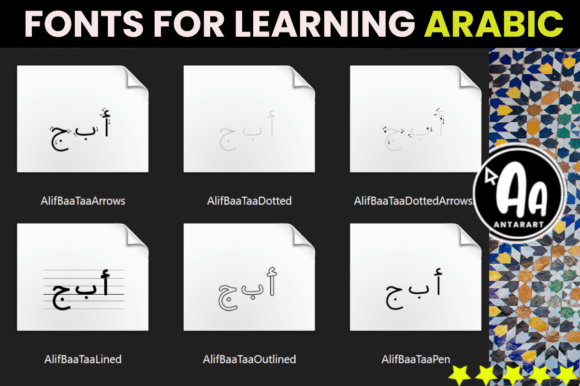
Alif Baa Taa Arabic Alphabet Letters Font: A Comprehensive Guide to Learning Arabic
The Arabic language has a rich history and culture, and learning it can be a rewarding experience. One of the essential steps in learning Arabic is to familiarize yourself with its alphabet. The Alif Baa Taa Arabic Alphabet Letters Font is a valuable resource that can help you learn and teach Arabic with ease. In this article, we will explore the benefits of using this font and how it can aid in your Arabic learning journey.
What is Alif Baa Taa Arabic Alphabet Letters Font?
The Alif Baa Taa Arabic Alphabet Letters Font is a handwritten Arabic font designed to help individuals learn and teach the Arabic language. This font includes all the letters of the Arabic alphabet, written in a clear and readable style. The font is perfect for creating worksheets, flashcards, and other learning materials that can be used to teach Arabic to students of all ages.
Benefits of Using Alif Baa Taa Arabic Alphabet Letters Font
The Alif Baa Taa Arabic Alphabet Letters Font offers several benefits for individuals interested in learning or teaching Arabic. Some of the advantages of using this font include:
- Easy to Read and Write: The font is designed to be clear and readable, making it easy for individuals to learn and practice writing Arabic letters.
- Perfect for Worksheets and Flashcards: The font can be used to create worksheets, flashcards, and other learning materials that can be used to teach Arabic to students of all ages.
- Great for Language Learners: The font is an excellent resource for individuals interested in learning Arabic, as it provides a clear and concise way to practice reading and writing Arabic letters.
- Supports Language Teachers: The font is also a valuable resource for language teachers, as it provides a consistent and clear way to teach Arabic letters to students.
How to Use Alif Baa Taa Arabic Alphabet Letters Font
The Alif Baa Taa Arabic Alphabet Letters Font can be used in a variety of ways to support Arabic language learning. Here are some ideas:
- Create Worksheets: Use the font to create worksheets that include Arabic letters, words, and phrases. This can be a great way to practice reading and writing Arabic.
- Make Flashcards: Create flashcards using the font to help you memorize Arabic letters and words.
- Design Posters: Use the font to create posters that display Arabic letters and words. This can be a great way to decorate a classroom or language learning space.
- Practice Handwriting: Use the font to practice writing Arabic letters by hand. This can help improve your handwriting and reinforce your learning.
Tips for Learning Arabic with Alif Baa Taa Arabic Alphabet Letters Font
Here are some tips for learning Arabic using the Alif Baa Taa Arabic Alphabet Letters Font:
- Start with the Basics: Begin by learning the individual Arabic letters, and then practice reading and writing words and phrases.
- Practice Regularly: Set aside time each day to practice reading and writing Arabic using the font.
- Use Flashcards: Create flashcards using the font to help you memorize Arabic letters and words.
The Alif Baa Taa Arabic Alphabet Letters Font is a valuable resource for individuals interested in learning or teaching Arabic. This font provides a clear and readable way to practice reading and writing Arabic letters, making it an excellent tool for language learners and teachers. By using this font, you can create worksheets, flashcards, and other learning materials that can help you achieve your Arabic language learning goals.